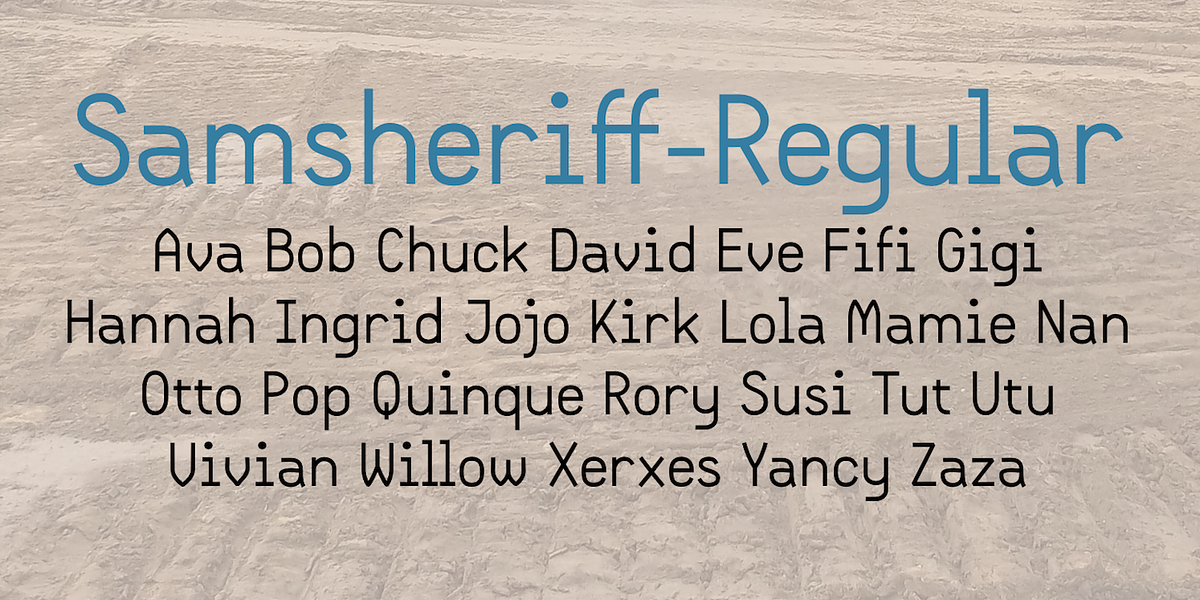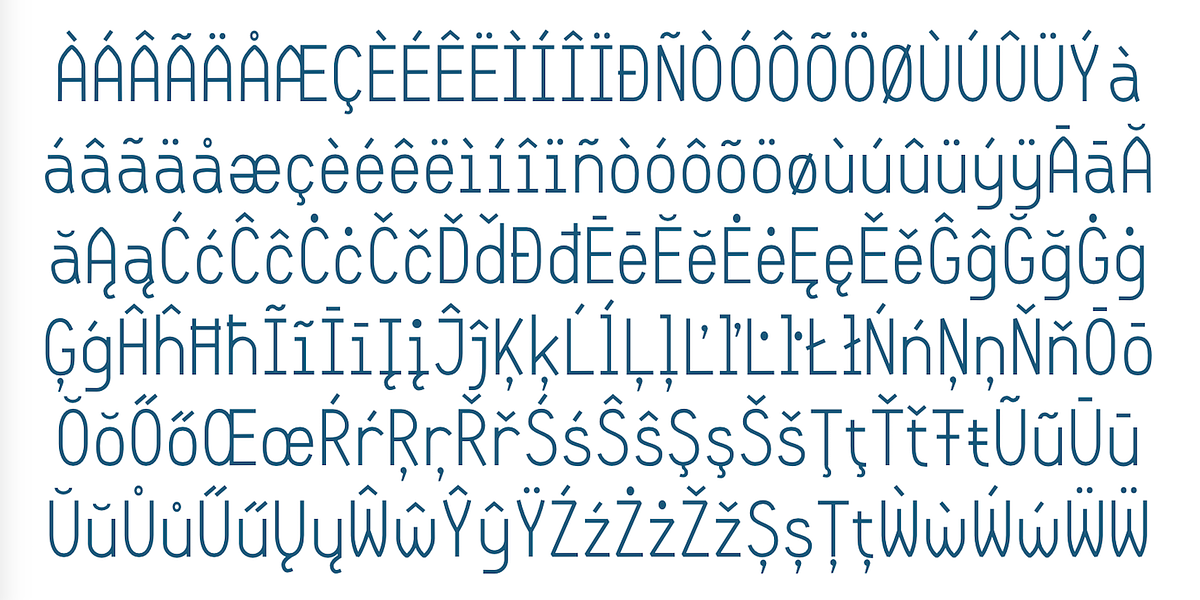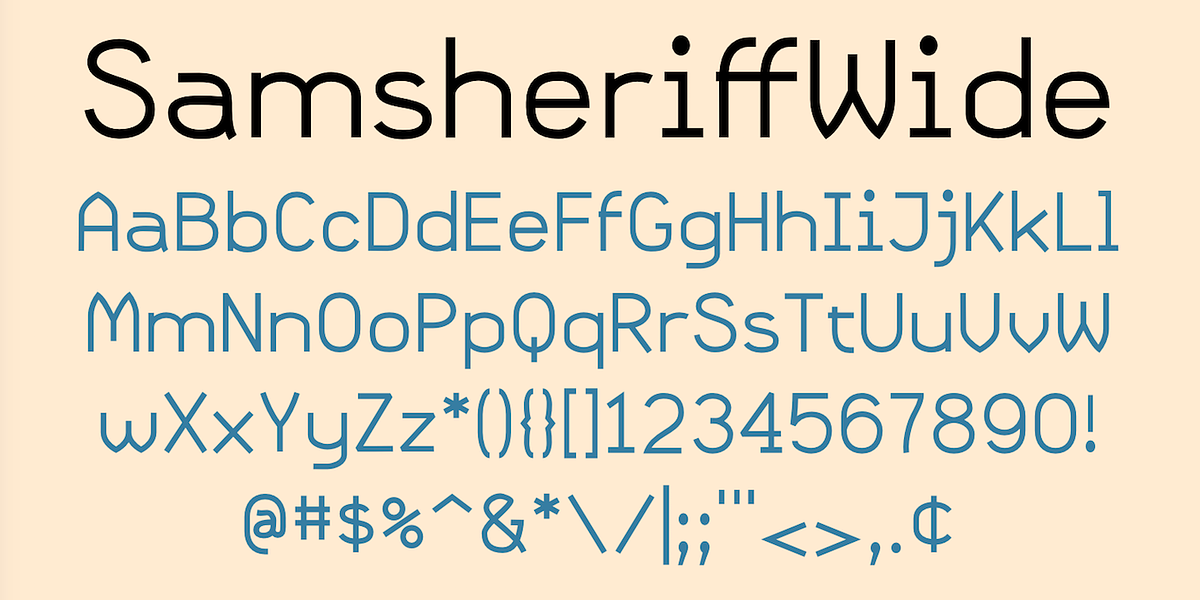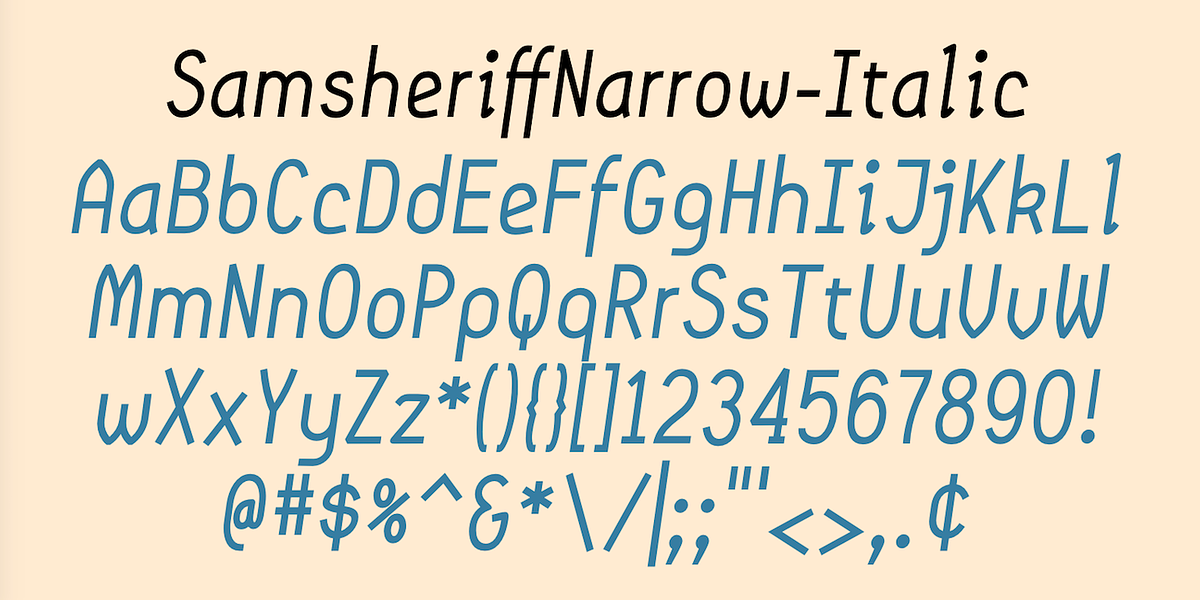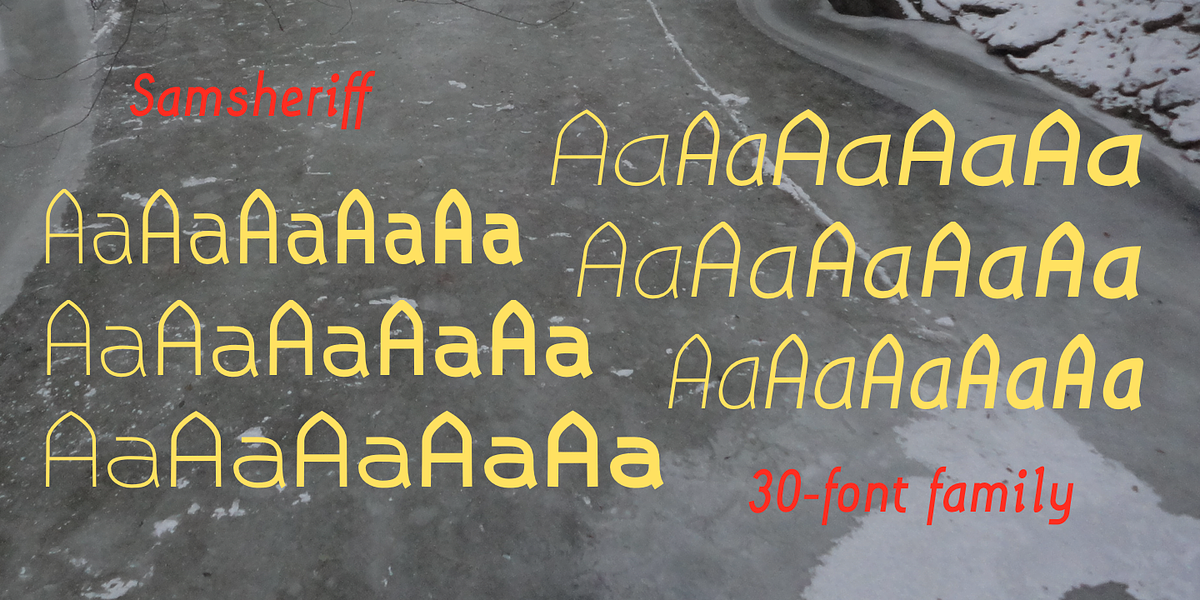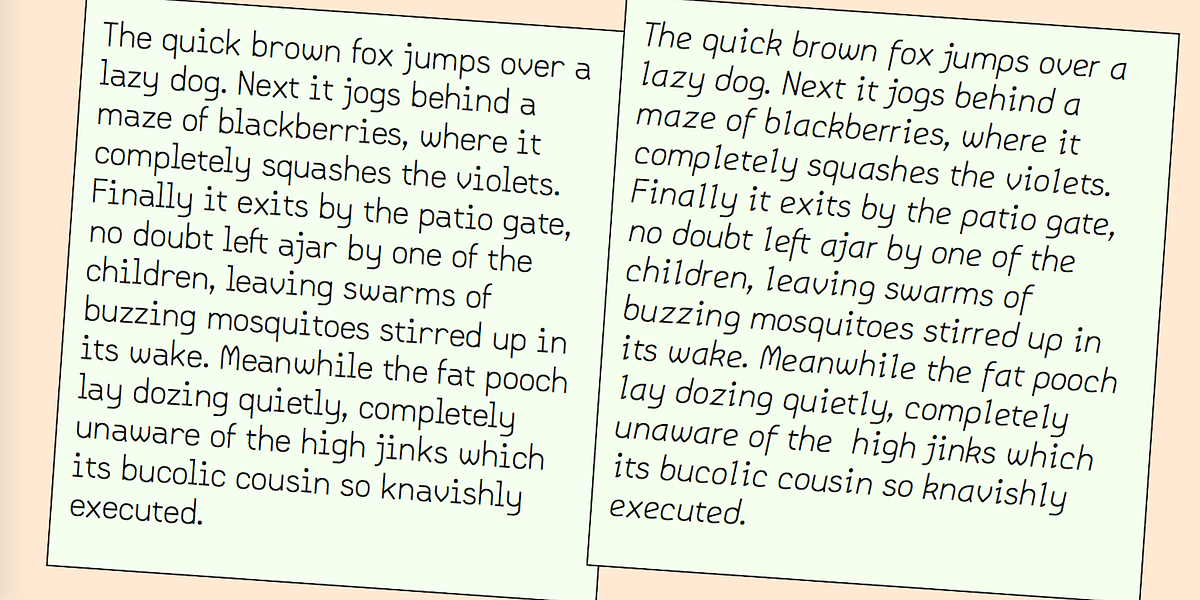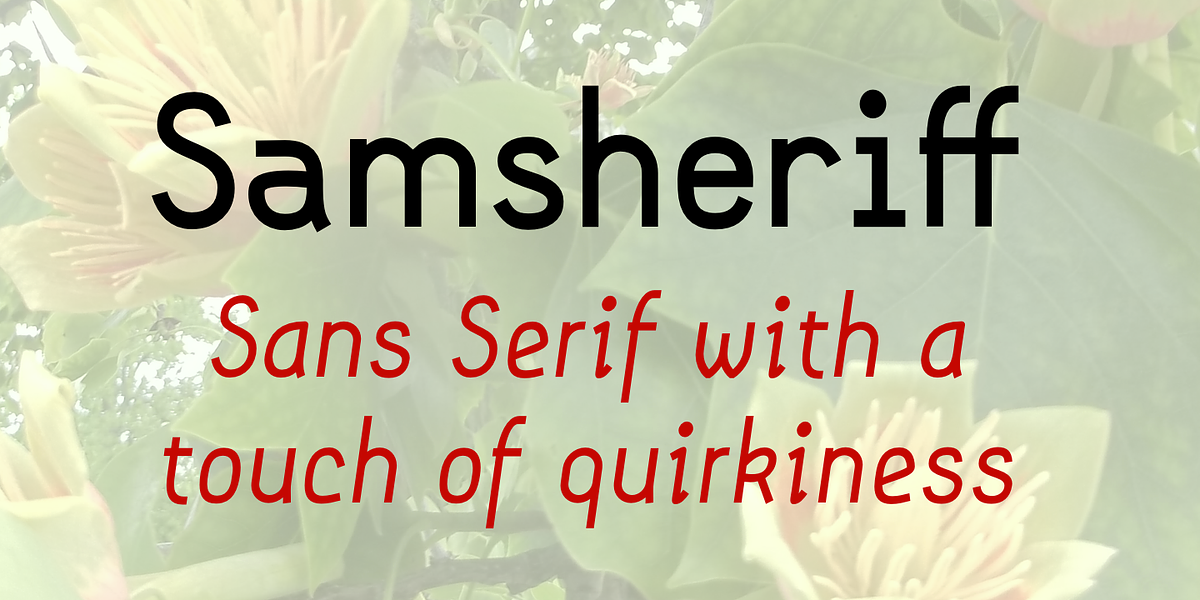
Samsheriff
Samsheriff is a versatile sans-serif typeface family that combines legibility with a distinctive quirky style. It features square letterforms and a monolinear design, contributing to its unique personality. The font family offers a wide range of weights and widths, making it suitable for diverse applications such as display text, branding, and signage.